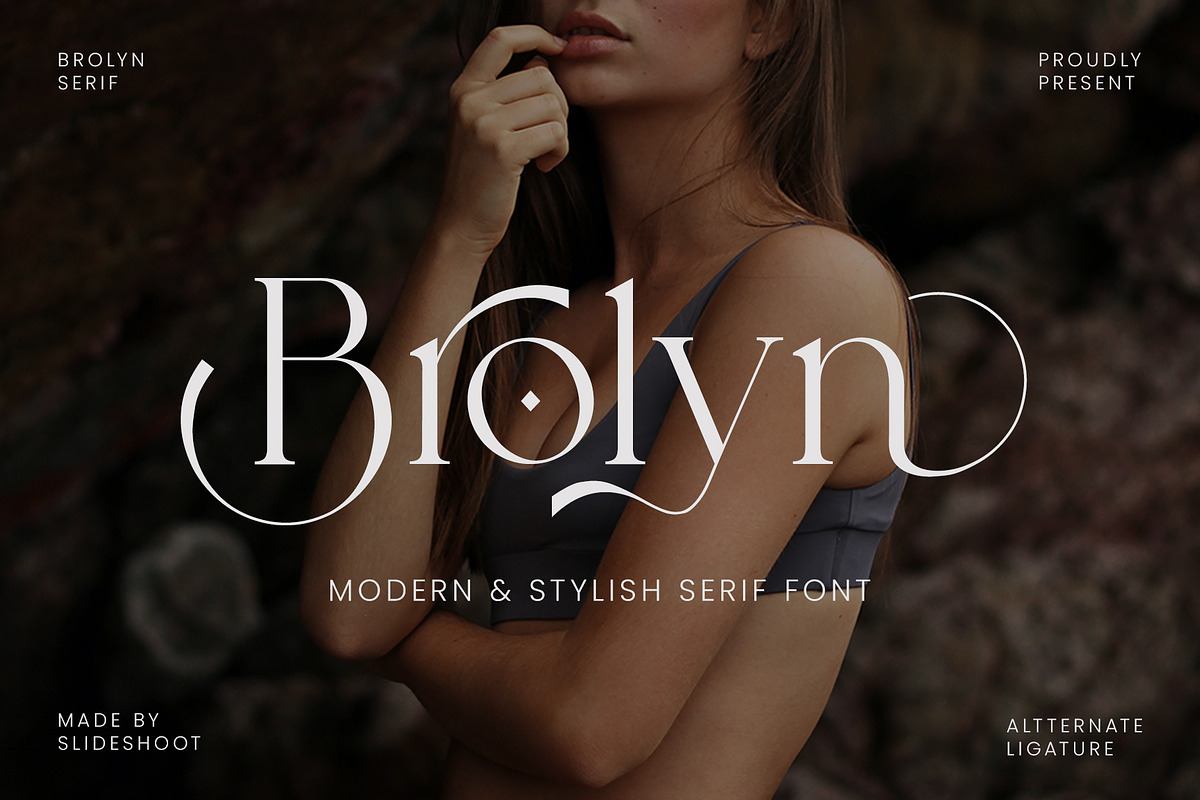
Brolyn Font Free Download is a modern serif typeface that combines classic elegance with bold, contemporary flair. Featuring high-contrast strokes, sharp serifs, and stylish details, Brolyn is perfect for luxury branding, fashion editorials, logo design, magazine headlines, and upscale packaging.
Designed to make a statement, Brolyn offers a refined structure with dramatic curves and clean lines. It includes uppercase and lowercase letters, numerals, punctuation, and elegant ligatures—giving you full creative flexibility for both print and digital projects.
Whether you're building a high-end brand identity or designing sophisticated visual content, Brolyn Font Free Download brings a polished, editorial look to your typography. Feel free to use it in personal or test projects, and make sure to purchase the correct license for any commercial applications. Add bold sophistication to your design toolkit with this stunning modern serif font.